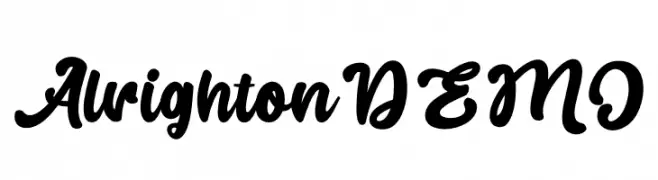
A graceful and fluid script font with elegant curves and delicate strokes.
A bold, brushstroke-style font with a dynamic and artistic flair.
A dynamic brushstroke-inspired font with an artistic and textured appearance.
An elegant script font with flowing, interconnected letters and ornate details.
A cursive script font with elegant, flowing characters.
An elegant, flowing script font with smooth, cursive lines and graceful curves.
An elegant and flowing script font with ornate uppercase and smooth lowercase letters.